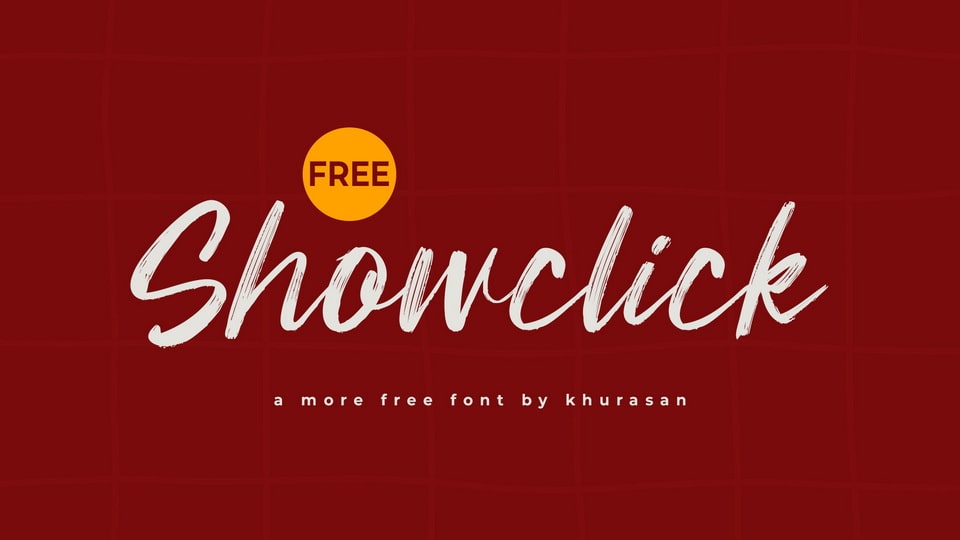
Download Showclick font, a bold and expressive handwritten brush typeface designed to make a statement with its textured strokes and energetic movement.